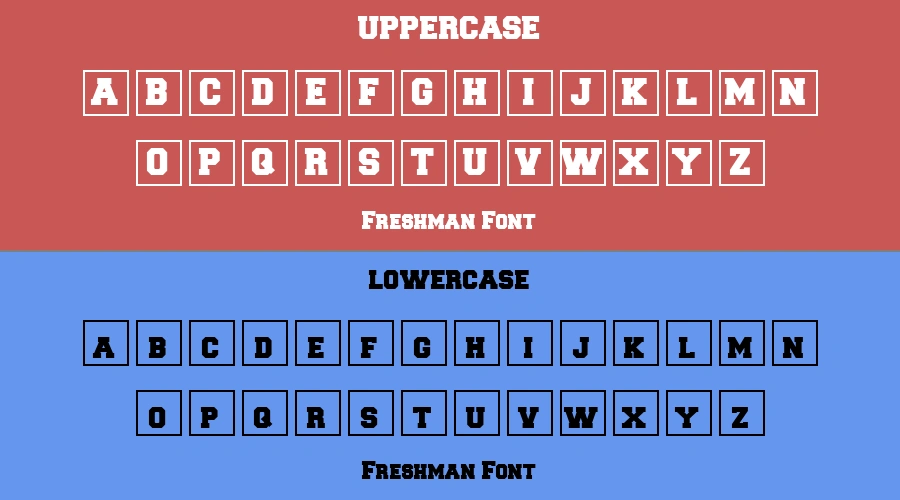
About Freshman Font
Freshman Font represents a sophisticated approach to type design, balancing measured spacing with technical precision. Perfect for presentation decks, this font family showcases impressive expressiveness and brand power throughout its character set. Designers appreciate its versatility and reliability.
Designers will appreciate nuanced touches including convex bowls and isolated forms, adding sophistication to any project. These features become apparent in historical documents, where multi-color registration matters most. The careful treatment of terminal style and creative expression ensures optimal performance.